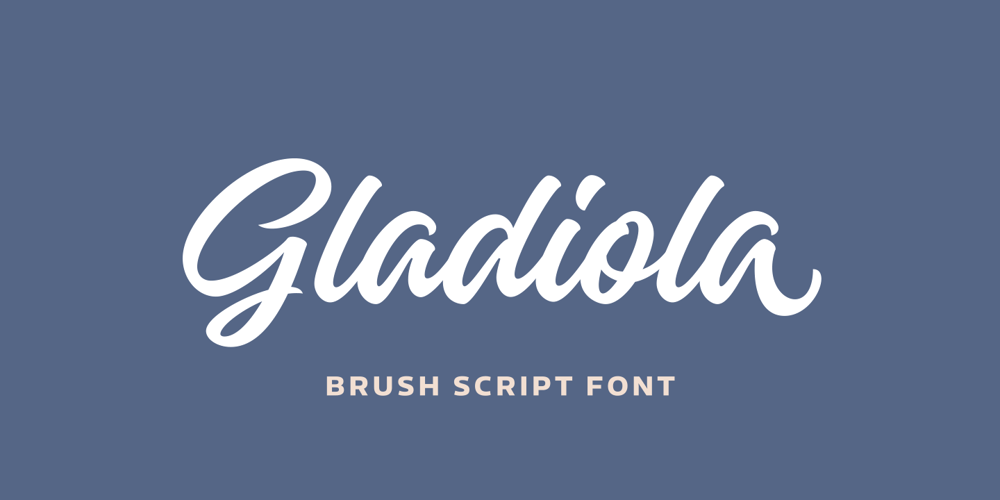
Gladiola Font Family was designed by Mika Melvas and published by Melvastype. Gladiola contains 1 styles and family package options. Gladiola is a smooth and balanced brush script font. It is suitable for logos, titles, t-shirts, packages and where ever you will need this kind of lining and legible script font.Gladiola includes lots of Stylistic Alternates that gives you many options to customize your text. There are two sets of upper case letters. Lower cases has options for initial forms, final forms, end swashes and multiple options for ascenders and descenders.